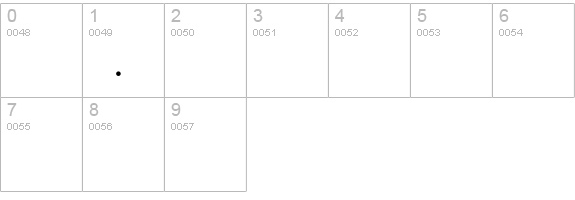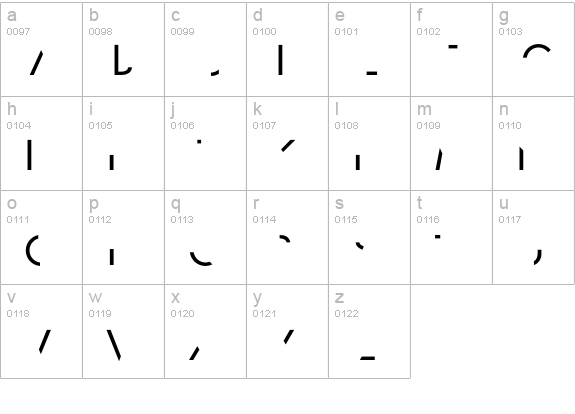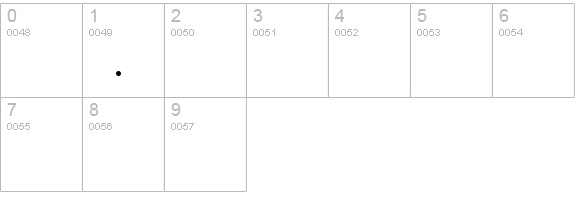
DearJohn-Bold is a strong, high-contrast variant in the DearJohn typeface family \xE2\x80\x94 well suited to headlines, attention-grabbing titles, and strong calls-to-action.
DearJohn-Bold font is a bold and eye-catching typeface that exudes confidence and strength. Its thick strokes and sharp angles make it perfect for headlines, titles, and other prominent text. The strong presence of this font commands attention and leaves a lasting impression on the reader. The best part about DearJohn-Bold font is that it is completely free to download at FontsMarket.com. This means you can easily access this striking typeface for all your design projects without any cost. Whether you are creating posters, flyers, or digital graphics, DearJohn-Bold font will elevate your designs and make them stand out. Download it now and add a touch of boldness to your projects!